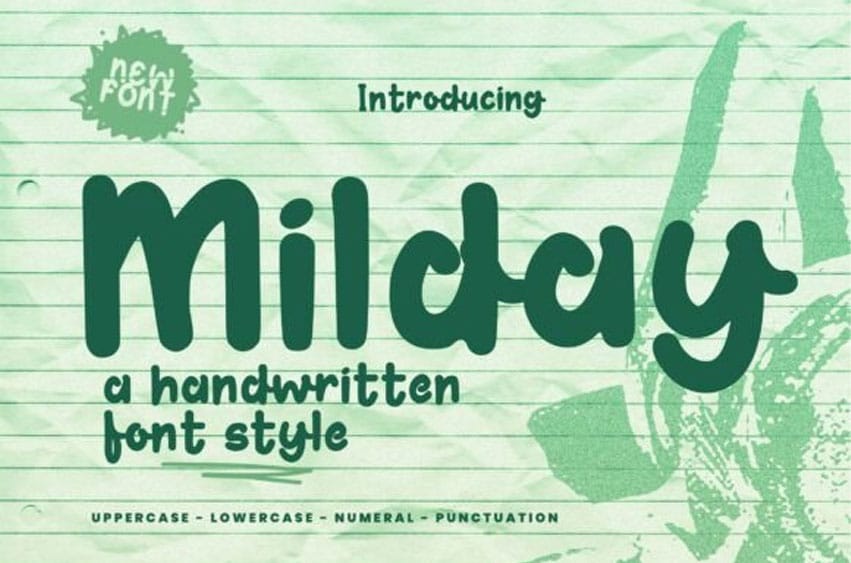
Milday Font is a sweet and friendly handwritten font.
It is perfect for use on crafts, websites, logos, and so much more.
Milday Font is a sweet and friendly handwritten font.
It is perfect for use on crafts, websites, logos, and so much more.